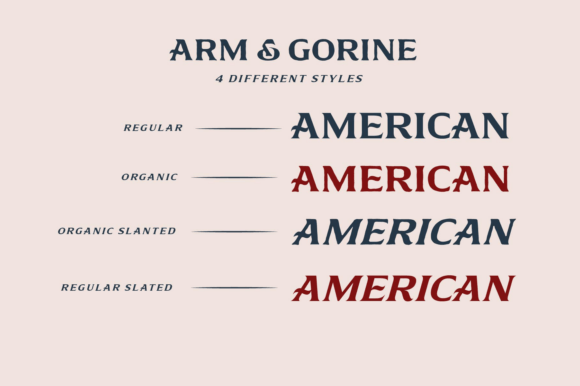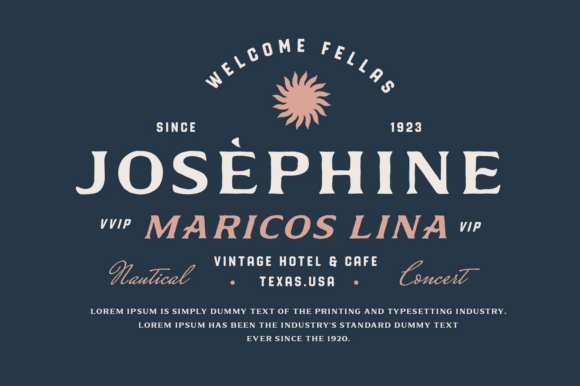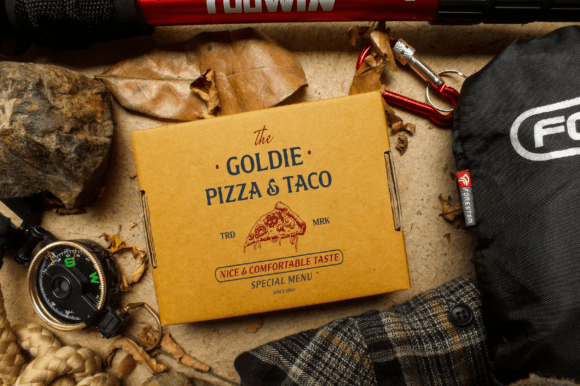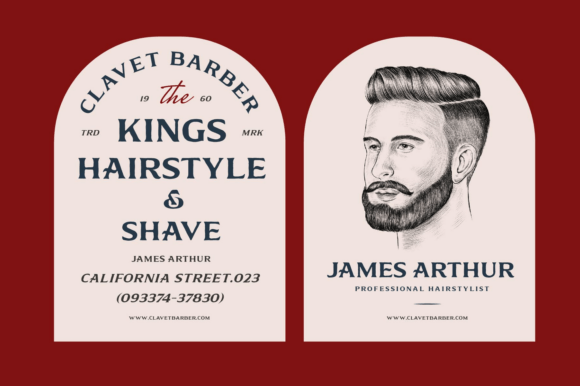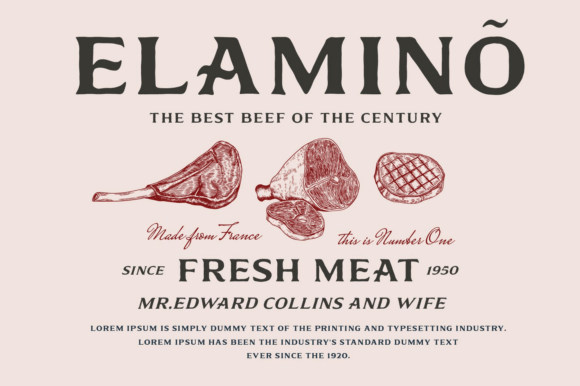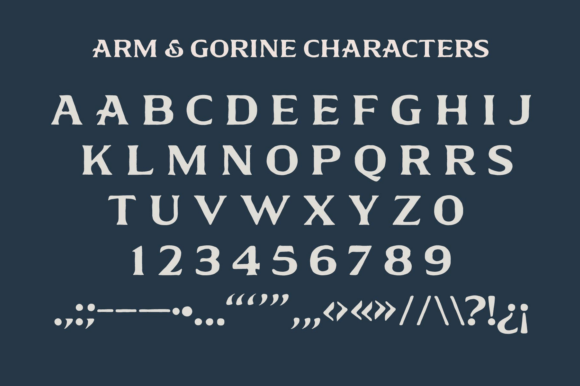
The Perfect Blend of Classic Elegance and Modern Charm
Imagine you’re browsing through a vintage bookstore, surrounded by dusty pages and the faint scent of old paper. As you flip through the pages, your eyes land on a beautiful, handcrafted font that immediately catches your attention. This is the kind of typography that stops you in your tracks and makes you feel something. For designers, creating this kind of emotional connection with our audience is what it’s all about.
Enter the Arm & Gorine Font, a vintage display serif designed to bring classic elegance and authentic personality to your creative projects. This versatile typeface is perfect for sophisticated branding, striking logos, editorial headlines, and social media graphics that need a touch of timeless charm. Whether you’re looking for a clean, vintage-inspired look or something more handcrafted and earthy, Arm & Gorine Font has got you covered.
Arm & Gorine Font Key Features
- Unique Characteristics: The Arm & Gorine font features a unique blend of modern and vintage elements, with clean lines, geometric shapes, and subtle texture, making it perfect for creating a distinctive and eye-catching visual identity.
Arm & Gorine Font Review
As a designer, I was excited to dive into the Arm & Gorine Font and see what it had to offer. Overall, I’d say it’s a solid, dependable font that’s perfect for everyday use. ✨ One of the things I appreciate most about Arm & Gorine is its versatility – it’s suitable for both digital and print applications, and it’s also highly legible across various font sizes.
Some of the other features that stand out to me include:
- High readability, even at smaller font sizes
- Wide range of language support, making it a great choice for global projects
- Sleek, modern design that’s perfect for contemporary branding and design
- Well-suited for headings and body text
That being said, there are a few limitations to consider:
- May not be the best choice for highly stylized or artistic projects
- Lacks a lot of flair or personality, which may make it feel a bit generic
- Not as unique or attention-grabbing as some other fonts on the market
Overall, I’d say Arm & Gorine is a reliable, solid choice for most design projects. While it may not blow you away with its unique features or flair, it’s a dependable font that gets the job done. ⚠️ Just be aware of its limitations and consider whether it’s the right fit for your specific project.
Arm & Gorine font is ideal for modern and sleek designs. Use it for headings, titles, and other prominent text elements. To get the most out of the font, use it in combination with clean and minimalist design principles.